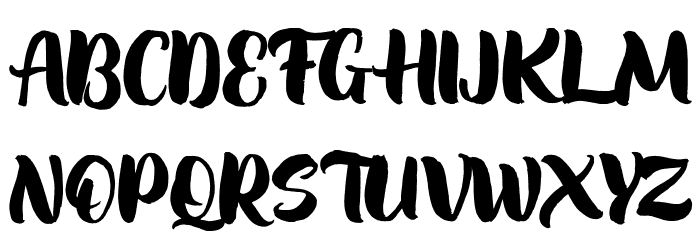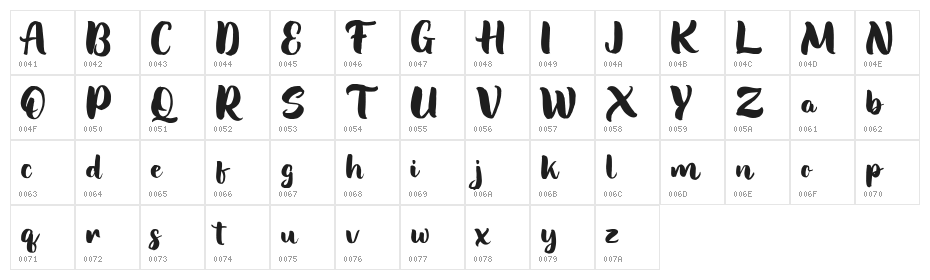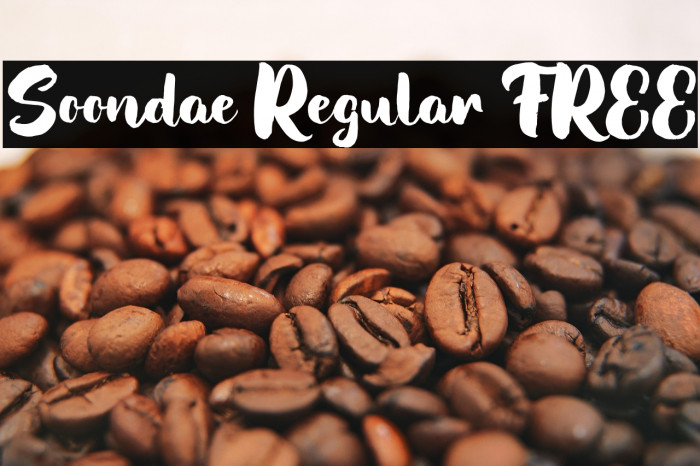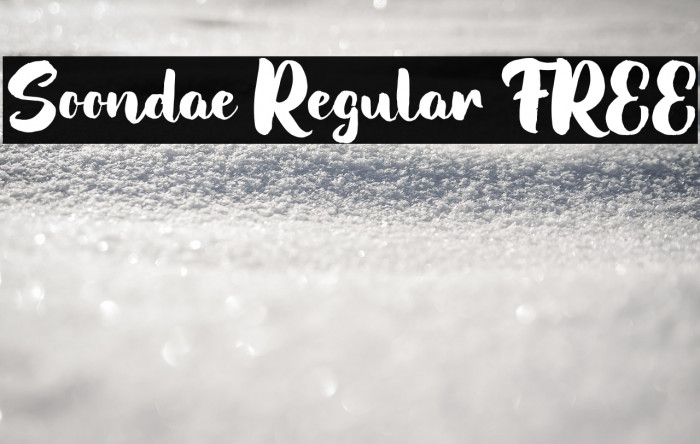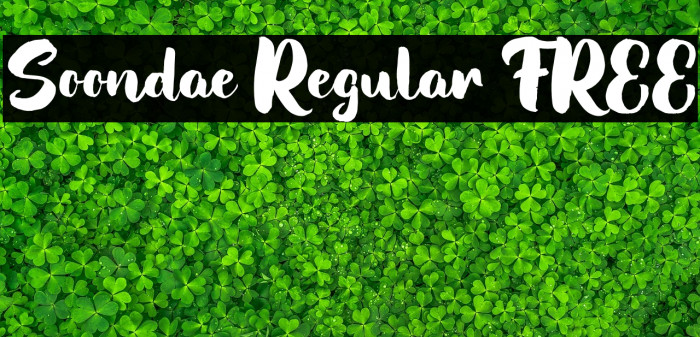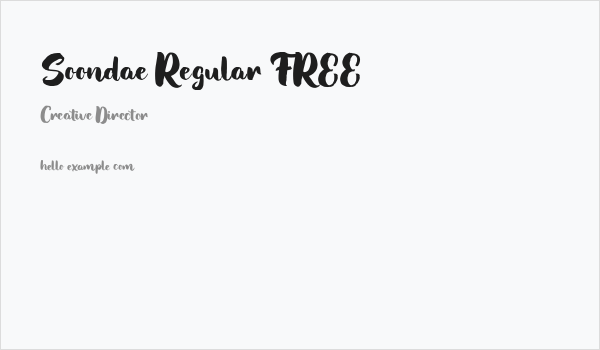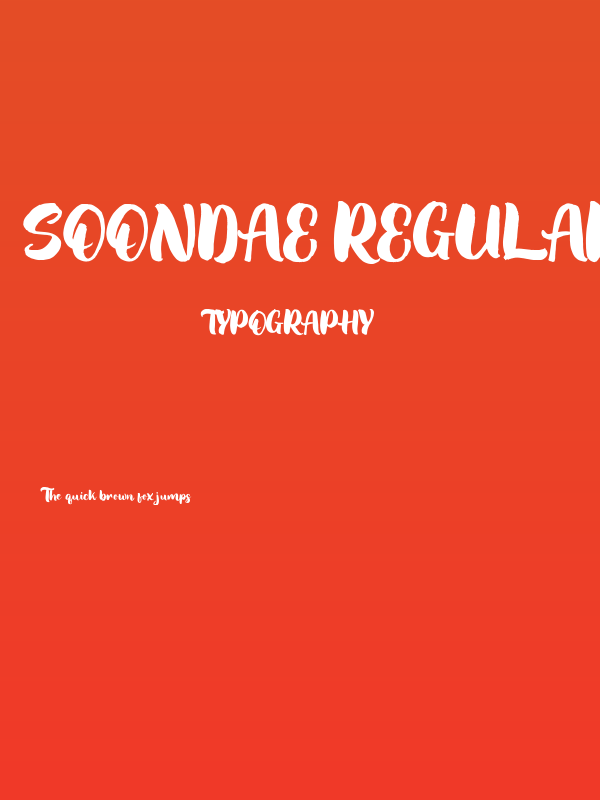
Soondae Regular FREE Font
Soondae Regular FREE Description
This font features a bold, expressive style with a handwritten appearance. The strokes are thick and fluid, giving each character a dynamic and lively feel. The uppercase and lowercase letters maintain a consistent flow, with rounded edges and a slight slant that adds to the casual, yet artistic vibe. The font's design is reminiscent of brush lettering, making it ideal for projects that require a personal touch. The characters are well-spaced, allowing for readability while maintaining their unique style. This font is perfect for creative projects that need a bold statement.